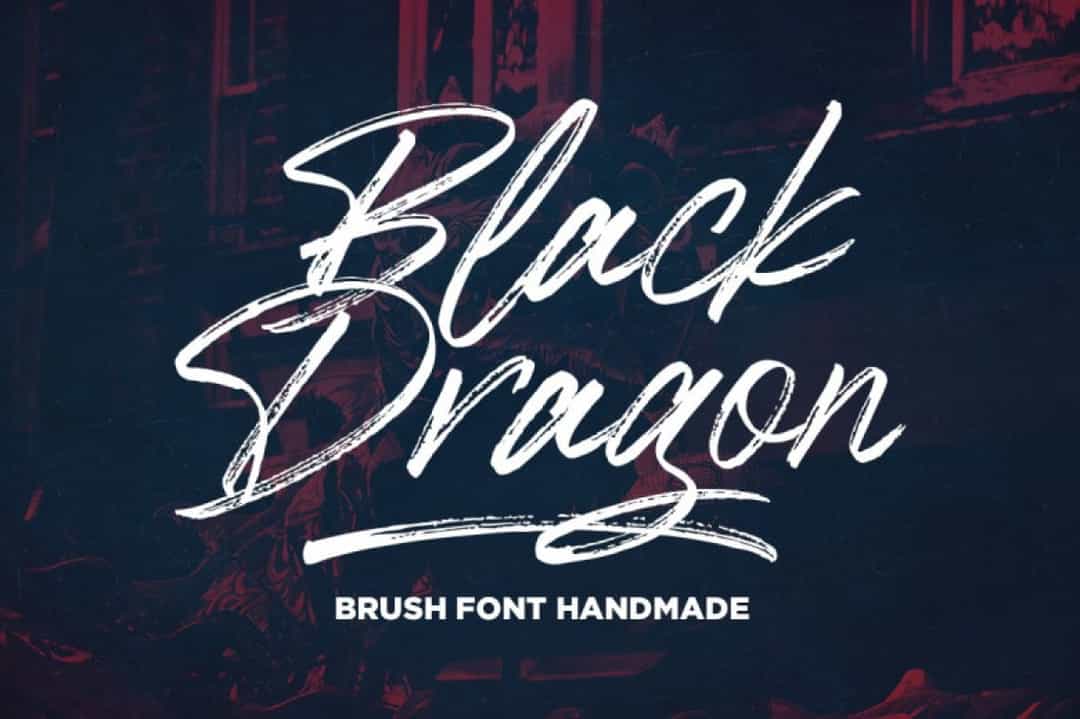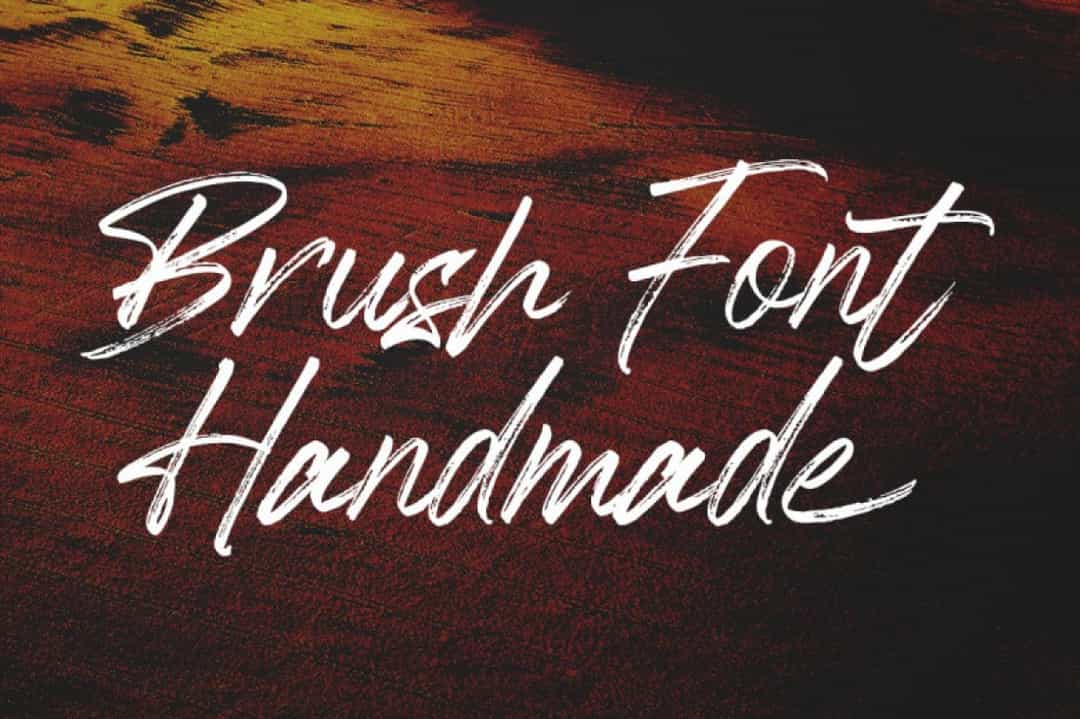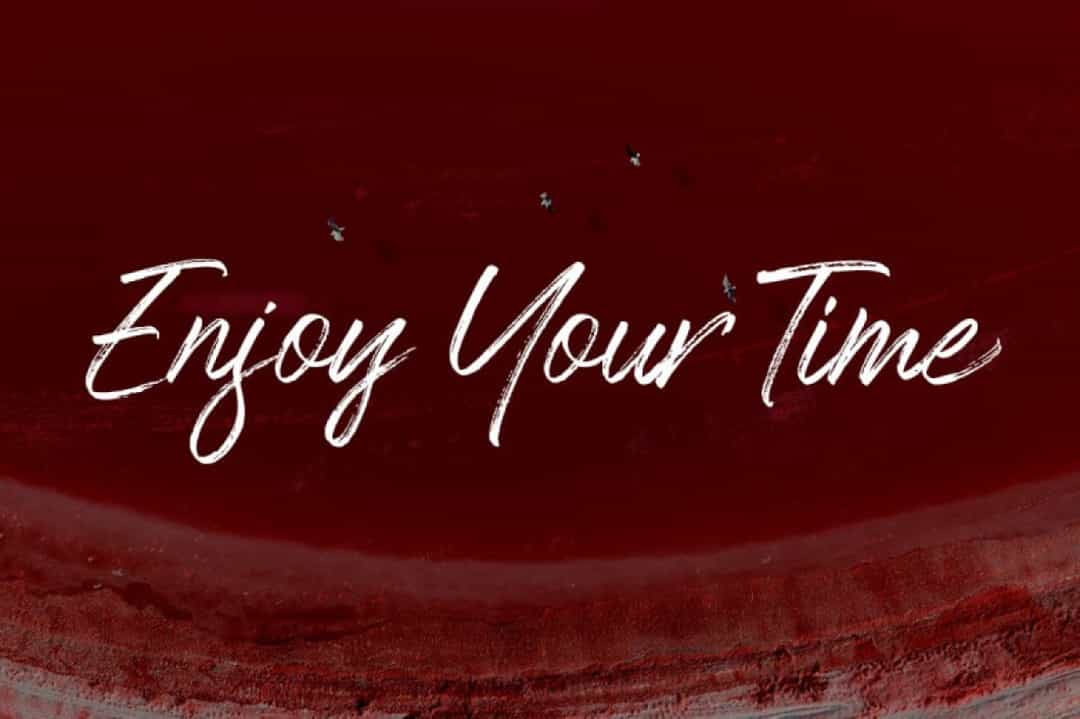
Discover Black Dragon Font, part of the Brush collection—a versatile and unique font perfect for adding a personal touch to your projects. Download it for free and enjoy crafting designs with style, from invitations to social media posts. This font is available exclusively for personal use, giving you the freedom to create without limits. Unlock your creativity with Black Dragon Font today!
Black Dragon is an original brush typeface crafted by hand with underscores for easy reading and writing. Perfect for design titles such as invitations, clothing or books; also suitable for stationery designs, branding logos greeting cards packaging designs t-shirts posters etc.